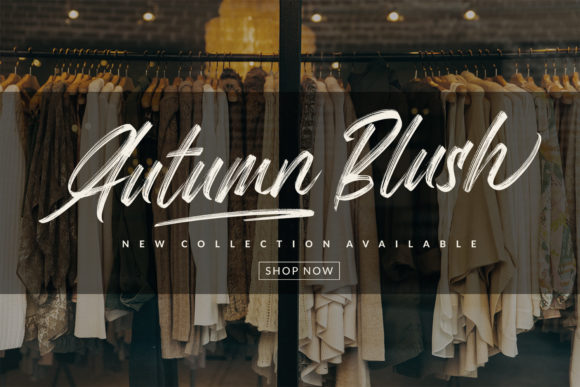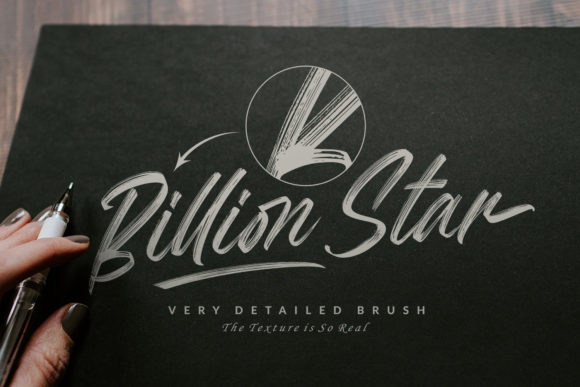
Monday Handbrush Font
db-ku.com - Script & Handwritten -- Monday Handbrush is a lovely and brushed handwritten font. It is the best choice for creating eye catching logos, branding and quotes. This font is PUA encoded which means you can access all of the glyphs and swashes with ease!